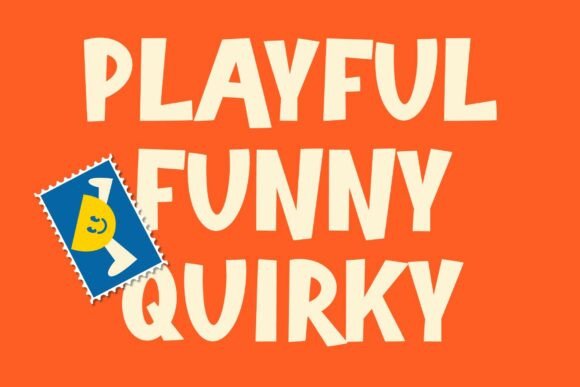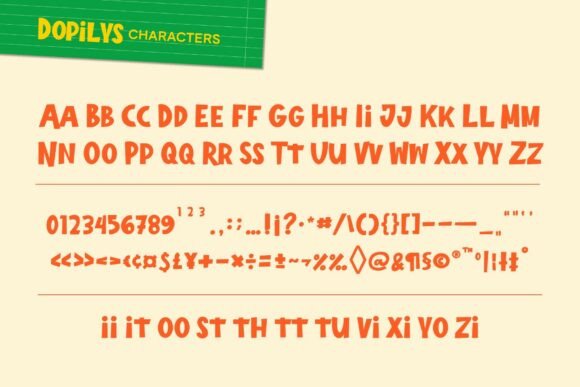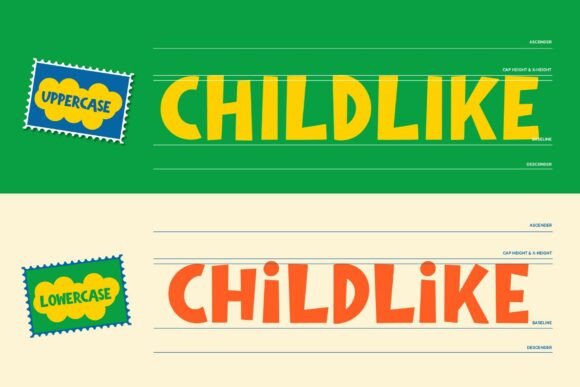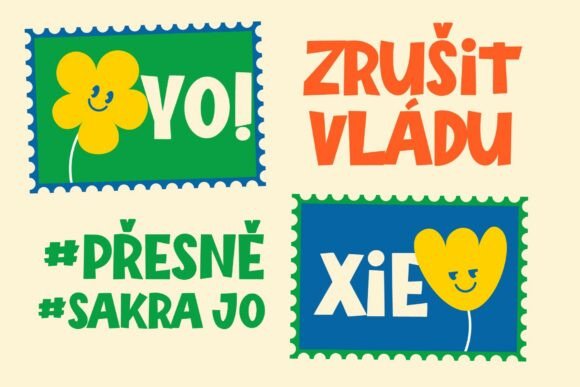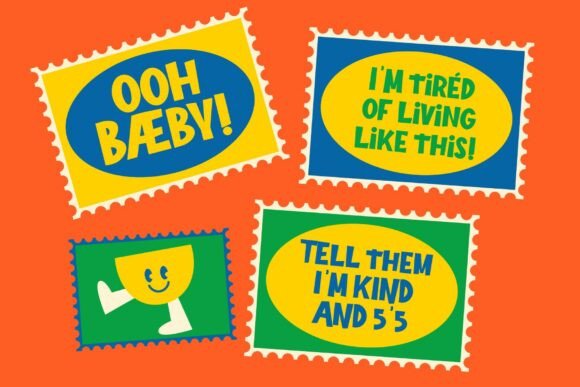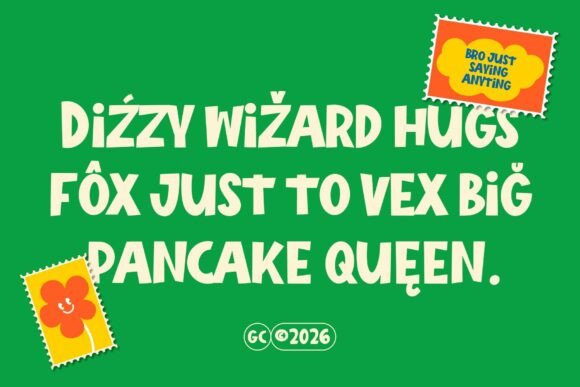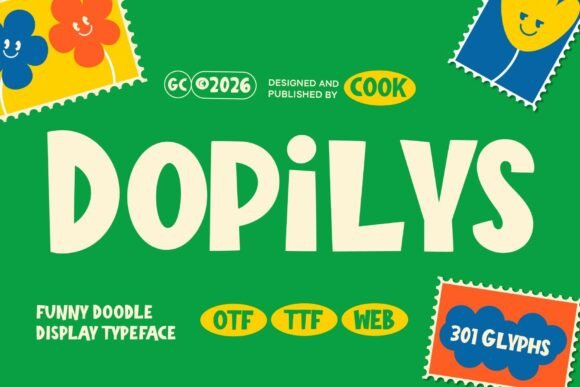
Dopilys Font: The Ultimate Playful Display Typeface for Creative Designs
Are you looking for a font that can add a fun and friendly vibe to your designs? Look no further than Dopilys, a playful display typeface that is perfect for children’s projects, playful branding, packaging, posters, headlines, and educational content. Inspired by doodles and cheerful kids-style visuals, Dopilys brings a retro-modern joy to any design.
The Inspiration Behind Dopilys
Dopilys is a font that is inspired by the playful and whimsical world of doodles and children’s illustrations. Its bold shapes and quirky characters are designed to evoke a sense of fun and friendliness, making it perfect for designs that need a lively and approachable personality.
Key Features of Dopilys
Dopilys is a chunky and character-filled typeface that features 301 unique glyphs, including playful alternates and quirky ligatures. These features give every word a custom, hand-illustrated feel that is sure to make your designs stand out. The font’s bold, “pulp” inspired weight makes it a powerhouse for sticker design, food packaging, and vintage-inspired posters that need a friendly, oversized personality.
Dopilys is a versatile font that is perfect for a wide range of design projects, including:
- Children’s projects: Dopilys is a great choice for children’s books, educational content, and kids’ branding.
- Playful branding: Add a fun and friendly vibe to your brand with Dopilys.
- Packaging: Dopilys is perfect for packaging design, especially for food and children’s products.
- Posters: Create eye-catching posters with Dopilys, whether it’s for a movie, game, or event.
- Headlines: Use Dopilys to add a playful touch to your headlines and titles.
- Logotypes: Create a custom logotype with Dopilys that is sure to stand out.
- Magazines: Use Dopilys to add a playful touch to your magazine designs.
- Quotes: Add a fun and friendly vibe to your quotes with Dopilys.
- Movies and games: Dopilys is perfect for movie and game titles, especially those with a playful or children’s theme.
- Cover albums: Use Dopilys to create eye-catching cover art for music albums.
What Makes Dopilys Unique
So what makes Dopilys unique? Here are a few features that set it apart:
- Soft, rounded terminals: Dopilys features soft, rounded terminals that give it a friendly and approachable feel.
- Unexpected character shapes: The font’s quirky character shapes add to its playful personality.
- Playful alternates and ligatures: Dopilys features 301 unique glyphs, including playful alternates and quirky ligatures that give every word a custom, hand-illustrated feel.
How to Use Dopilys in Your Designs
Using Dopilys in your designs is easy. Here are a few tips to get you started:
- Use it as a display font: Dopilys is perfect for headlines, titles, and other display text.
- Experiment with different colors: Dopilys looks great in bright, bold colors, so don’t be afraid to get creative.
- Pair it with other fonts: Dopilys pairs well with other playful fonts, as well as more serious fonts for a fun contrast.
Dopilys is a playful display typeface that is perfect for designers and crafters who want to add a fun and friendly vibe to their designs. With its bold shapes, quirky characters, and 301 unique glyphs, Dopilys is sure to bring a retro-modern joy to any design. Whether you’re working on a children’s project, playful branding, packaging, posters, headlines, or educational content, Dopilys is the perfect choice.